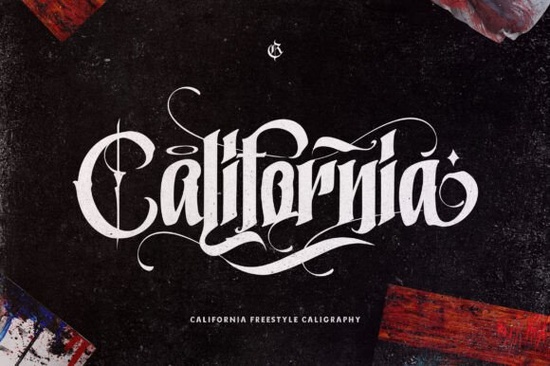
The California Style Font is a bold, thick blackletter typeface built for projects that need a strong, confident visual presence. If you've been looking for a gothic-inspired font that works across both print and digital designs, this one delivers clean results without a lot of tweaking. It's PUA encoded, which means every glyph, swash, and alternate character is fully accessible even in basic design software that doesn't always support OpenType features.
For anyone working on logos, apparel, posters, or packaging, blackletter fonts bring a sense of tradition and edge that modern sans-serifs just can't match. The California Style Font leans into that heritage while staying thick and readable enough for real-world use. You can explore more details about this typeface here.
What Can You Use a Bold Blackletter Font For?
Blackletter typefaces are more versatile than most people expect. They're not just for old books or newspaper mastheads. Here are some common ways designers and small business owners put them to work:
- Logo design especially for brands with a streetwear, tattoo, or vintage identity
- Print-on-demand products t-shirts, hoodies, mugs, and stickers
- Event posters and flyers concerts, tattoo conventions, craft markets
- Greeting cards and invitations particularly for dark, moody, or gothic themes
- Social media graphics bold headers and quote posts that stop the scroll
- Book covers and album art genres like horror, fantasy, and heavy metal
Because the California Style Font is thick and high-contrast, it holds up well at larger sizes and in single-color prints. That makes it a solid pick for screen printing and heat transfer vinyl work.
What Does PUA Encoded Actually Mean?
PUA stands for Private Use Area. It's a section of the Unicode standard that font designers use to map extra characters like swashes, ligatures, and stylistic alternates so they can be accessed by character code, even in programs that don't have full OpenType support.
In plain terms: if you're working in Canva, Cricut Design Space, or Silhouette Studio, PUA encoding means you can still use every special character in the font. You just copy and paste from a character map tool. No need for Illustrator or InDesign to get the fancy extras.
This is a big deal for crafters and small business owners who don't use professional design software daily. It lowers the barrier to creating polished, unique designs.
How Does It Compare to Other Blackletter Fonts?
Each of these serves a slightly different design need. The California Style Font sits in a sweet spot bold enough to make a statement, clean enough to stay readable in smaller applications.
Tips for Getting the Best Results
A few practical notes if you decide to use this font in your work:
- Use it at larger sizes. Bold blackletter fonts like this one are designed for headlines and display text. At very small sizes, the thick strokes can blur together.
- Pair it with a simple sans-serif. A clean font like Montserrat or Open Sans balances out the visual weight of blackletter nicely.
- Test on your actual output. If you're screen printing or cutting vinyl, run a test cut first. The thick strokes are generally forgiving, but swashes and alternates may need manual cleanup.
- Explore the alternates. Since this font is PUA encoded with full glyph access, take a few minutes to browse the extras. A well-placed swash can make a simple word mark feel custom.
If you're building a collection of gothic and blackletter typefaces, the California Style Font is a strong addition especially for bold, high-impact designs that need to work across different media and platforms.